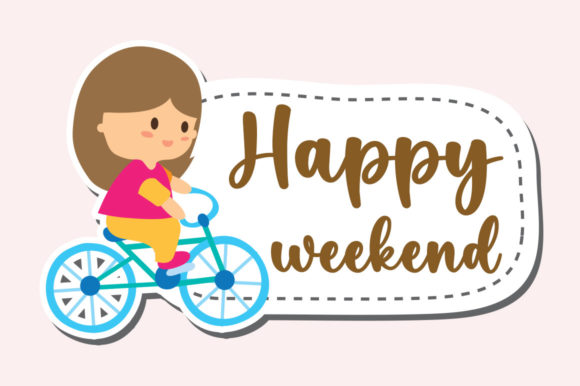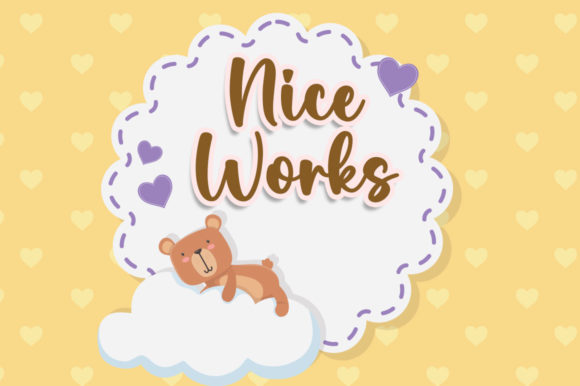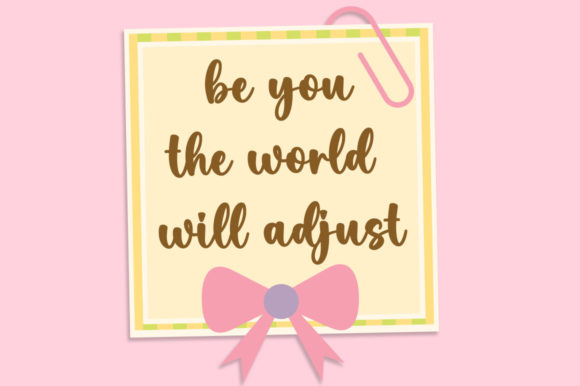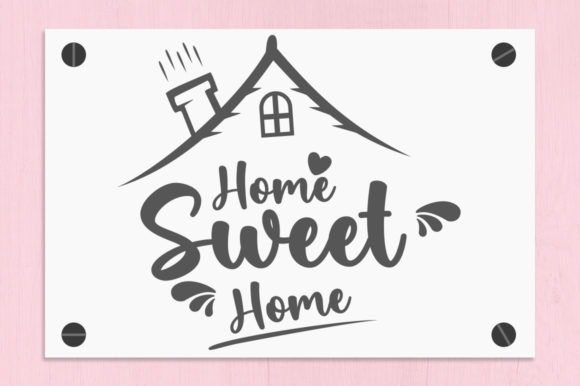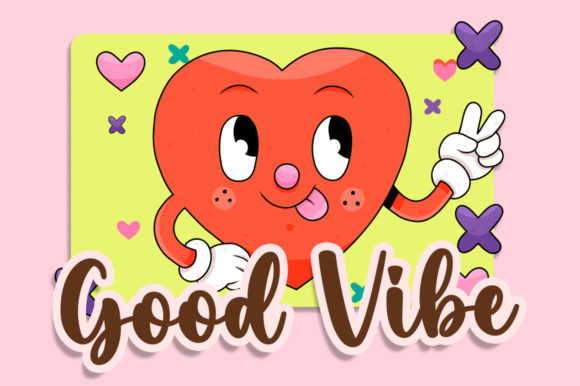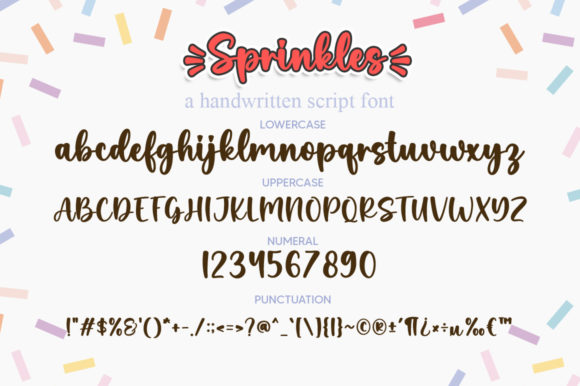
Sprinkles Font
About Sprinkles Font
Sprinkles is a trendy and simple lettered handwritten font, perfect for all the chalkboard quotes and teaching materials you wish to create! Its authentic look will add a personal and realistic feel to your designs.